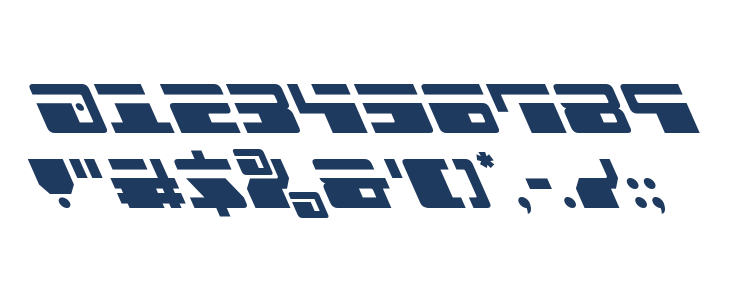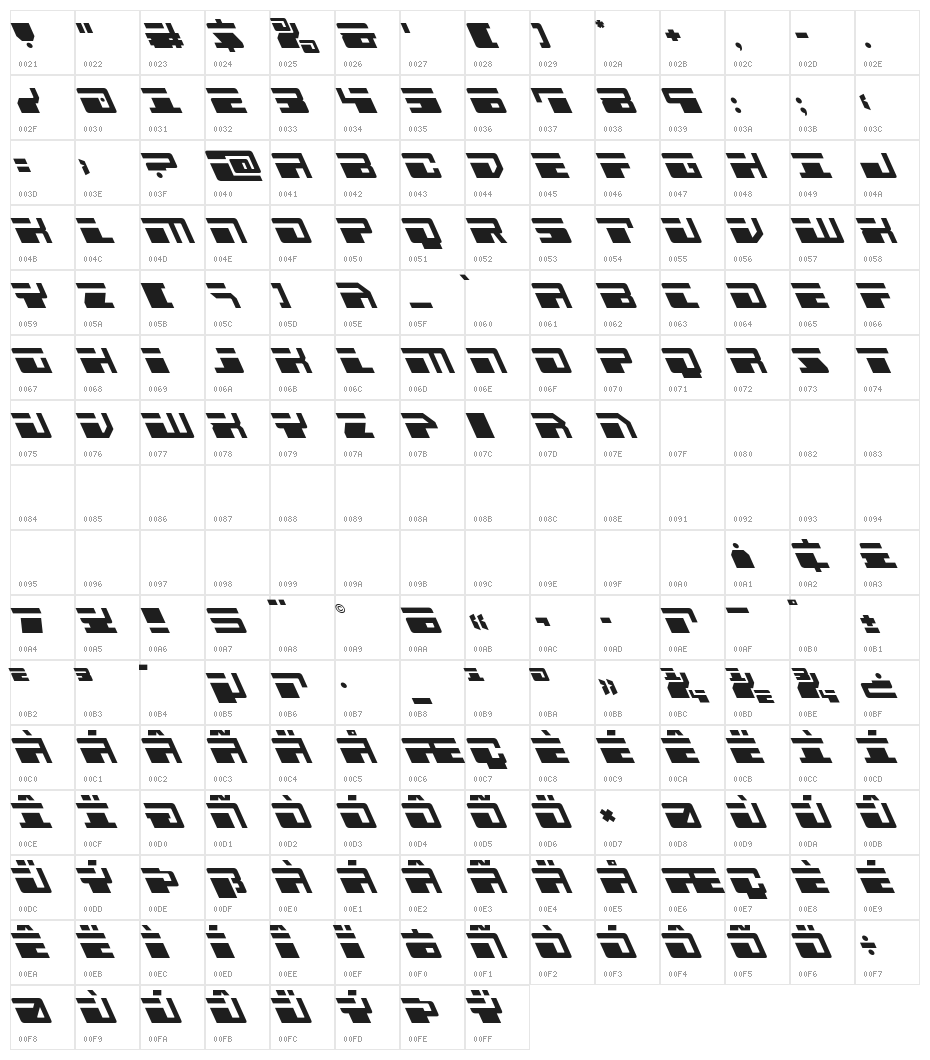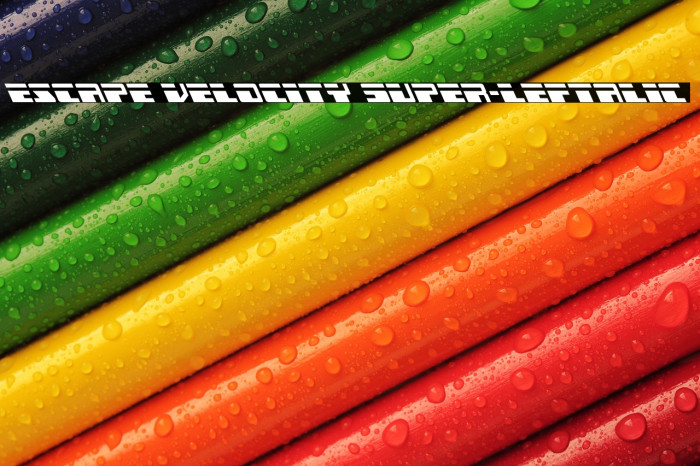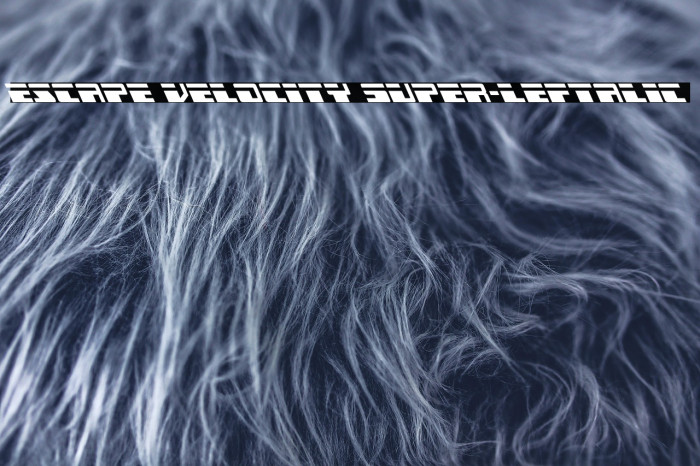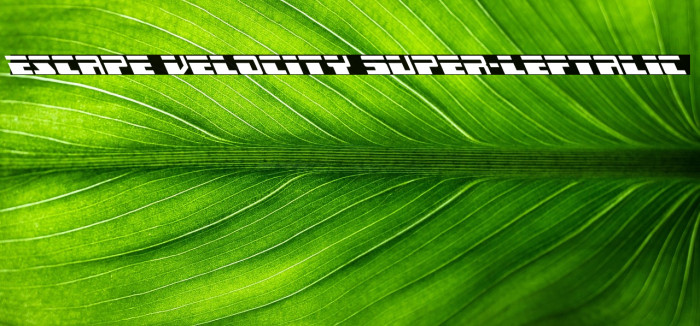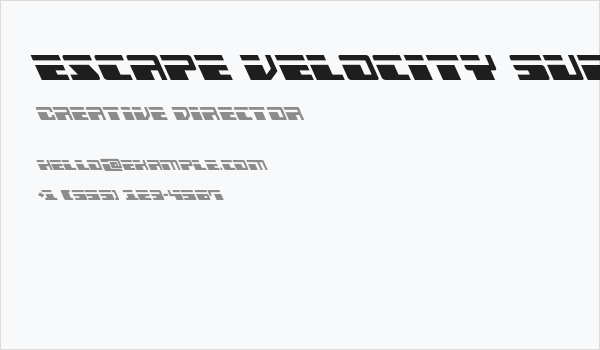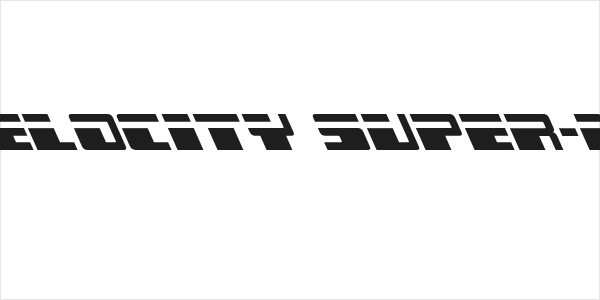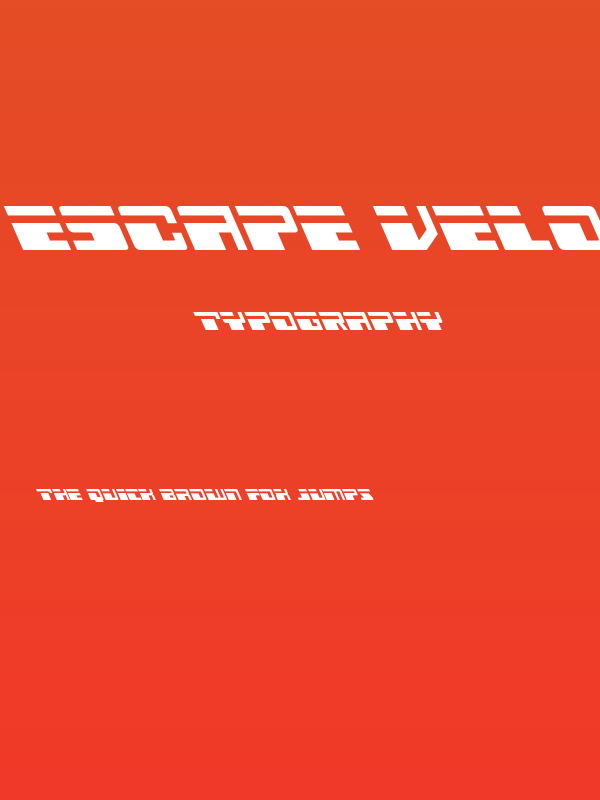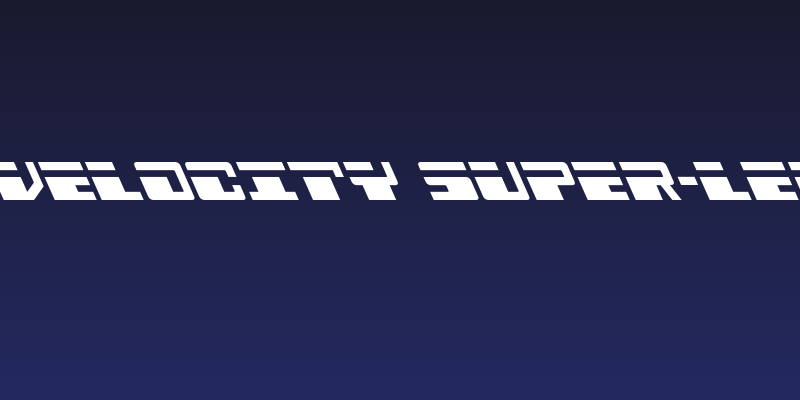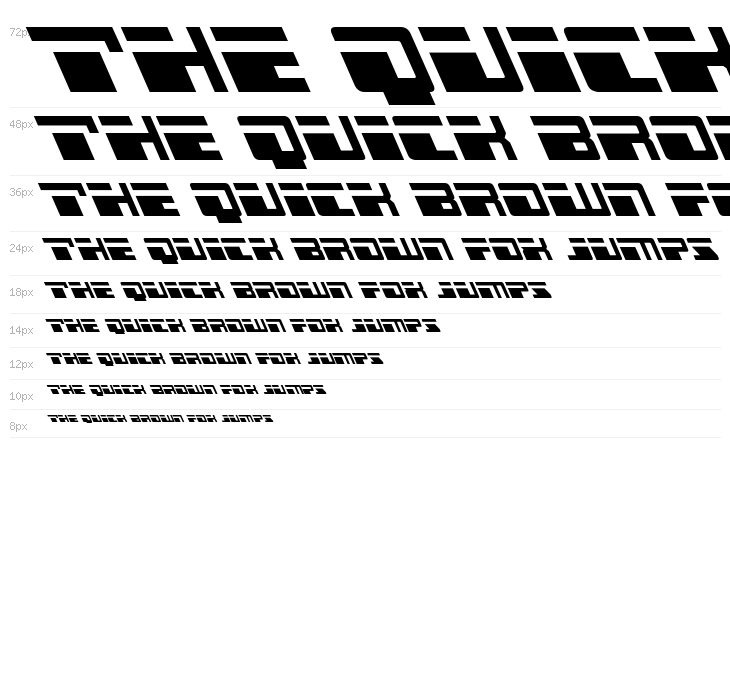
Escape Velocity Super-Leftalic Font
Escape Velocity Super-Leftalic Description
This font features a futuristic and dynamic design with a distinct italic slant, giving it a sense of motion and speed. The characters are bold and angular, with sharp edges and a geometric structure that conveys a modern and technological aesthetic. The uppercase and lowercase letters maintain a consistent style, with unique cutouts and negative spaces that add to the font's visual interest. The numerals and special characters follow the same design principles, ensuring uniformity across all glyphs. This font's bold presence makes it ideal for attention-grabbing applications.
| Proposed Projects | Ideal for sci-fi themed projects, video game titles, tech branding, and futuristic posters. |